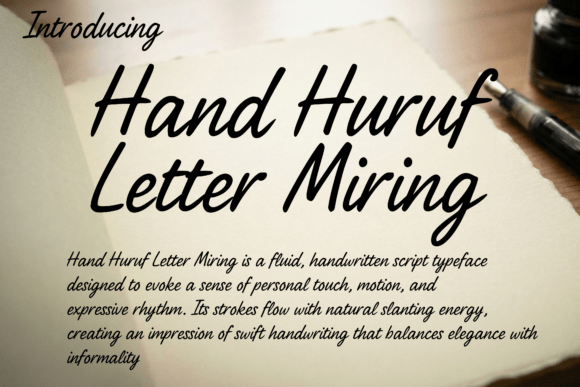
When Handwriting Meets Design: The Allure of Hand Huruf Letter Miring Font
Have you ever been struck by the beauty of a handwritten note or a signature that seems to leap off the page? That’s the kind of emotional connection designers strive to create with their audience, and that’s exactly what the Hand Huruf Letter Miring Font achieves.
This fluid, handwritten script typeface is designed to evoke a sense of personal touch, motion, and expressive rhythm. Its natural slant and smooth connections make it a versatile tool for designers looking to add a touch of elegance and informality to their projects. From creative branding to lifestyle packaging, social media graphics, and editorial layouts, the Hand Huruf Letter Miring Font is the perfect choice for designers who want to create a friendly yet refined visual identity.
Its hand-drawn quality enhances warmth and approachability, making it ideal for projects that require emotional connection, authenticity, and a sense of handcrafted charm.
Key Features of Hand Huruf Letter Miring Font
- Font Family: Hand Huruf Letter Miring Font is a unique, handwritten font that offers a distinctive and artistic touch to your designs.
- Unique Characteristics: The font features intricate, handwritten strokes and subtle variations in letterforms, giving it a personal and artistic feel.
Designer Review: Hand Huruf Letter Miring Font
Overall, I think Hand Huruf Letter Miring Font has a unique charm to it ✨. The font’s irregularities and imperfections give it a human touch, making it perfect for creative projects that require a personal and handcrafted feel. The font is also quite versatile and can be used in a variety of contexts, from branding and packaging to editorial and digital design.
The font’s bold and expressive nature makes it ideal for headlines and titles ✨. The characters have a nice, even spacing, and the font’s overall texture adds a sense of depth and visual interest. However, there are a few limitations to consider ⚠️:
- Some characters may be difficult to read, particularly at smaller font sizes
- The font may not be suitable for body text or large blocks of text, as it can be tiring to read
- Customization options are limited, making it difficult to adjust the font’s size, color, or style
Despite these limitations, I think Hand Huruf Letter Miring Font is a great addition to any designer’s toolkit ✨. Its unique character and versatility make it a great choice for creative projects, and its bold, expressive nature makes it perfect for grabbing attention.
Hand Huruf Letter Miring font is ideal for creating unique and eye-catching designs, such as:
- Brand logos and identities
- Handmade or artisanal product labels
Alternatives to Hand Huruf Letter Miring Font
Pacifico is a beautiful, elegant script font that works well for titles, headings, and body text. It is suitable for use in wedding invitations, greeting cards, and other formal events. Compared to Hand Huruf Letter Miring Font, Pacifico has a more refined and polished look, making it a great choice for designers who want a sophisticated and elegant feel.
Carolyna Pro is a modern script font that is perfect for designers who want a unique and eye-catching look. It is suitable for use in fashion, beauty, and lifestyle branding, as well as in advertising and marketing materials. Compared to Hand Huruf Letter Miring Font, Carolyna Pro has a more dynamic and energetic feel, making it a great choice for designers who want to add some excitement to their designs.